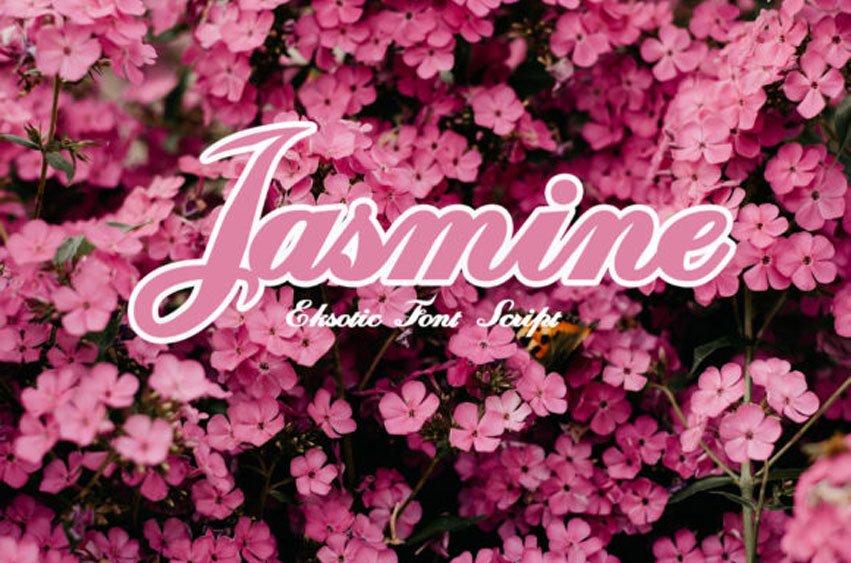
Jasmine Script Font
Jasmine Script Font is an remarkable handwritten font, masterfully designed to become a top choice.
It maintains its classy calligraphic influences while feeling contemporary and fresh. Fall in love with it and bring your projects to the highest levels!